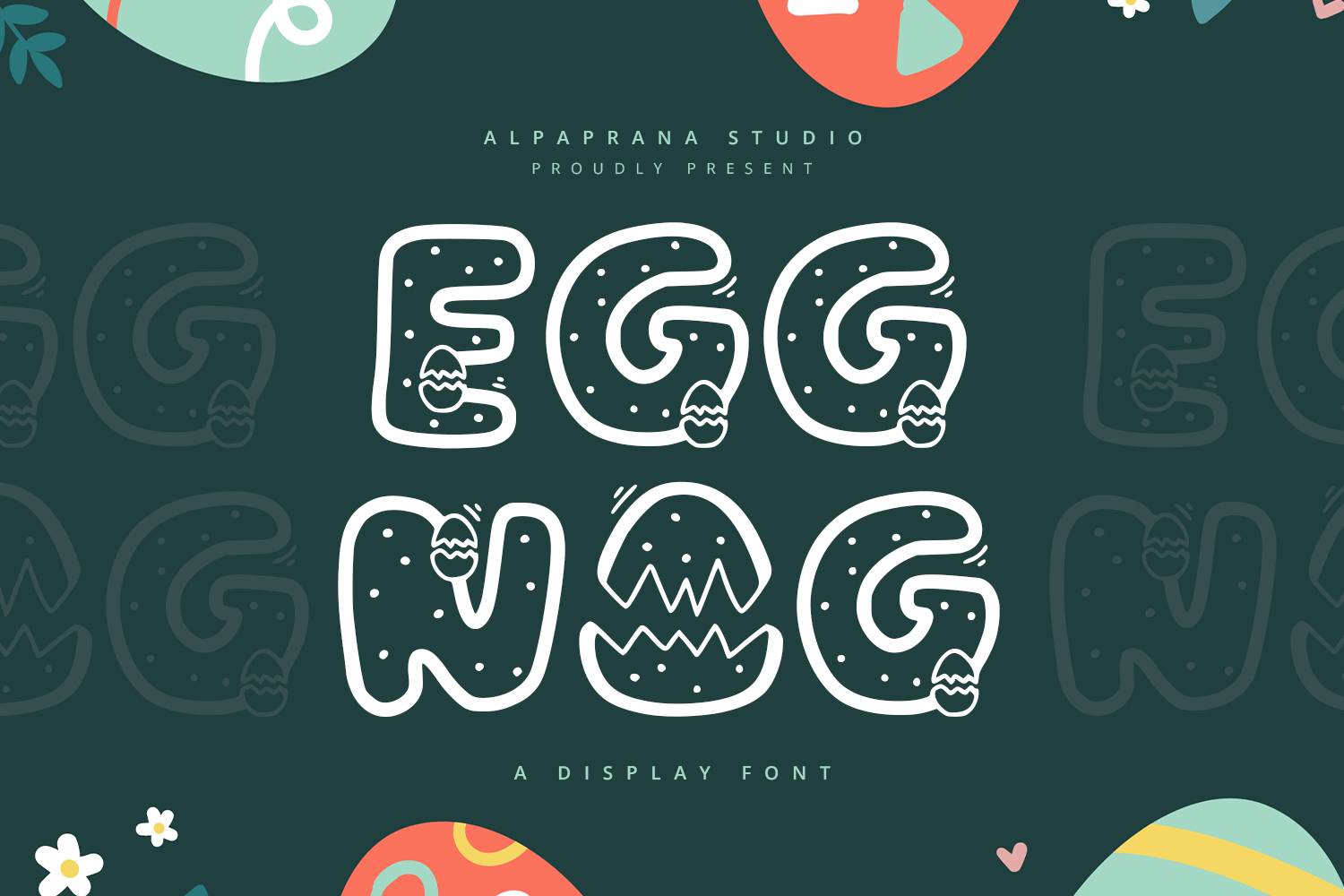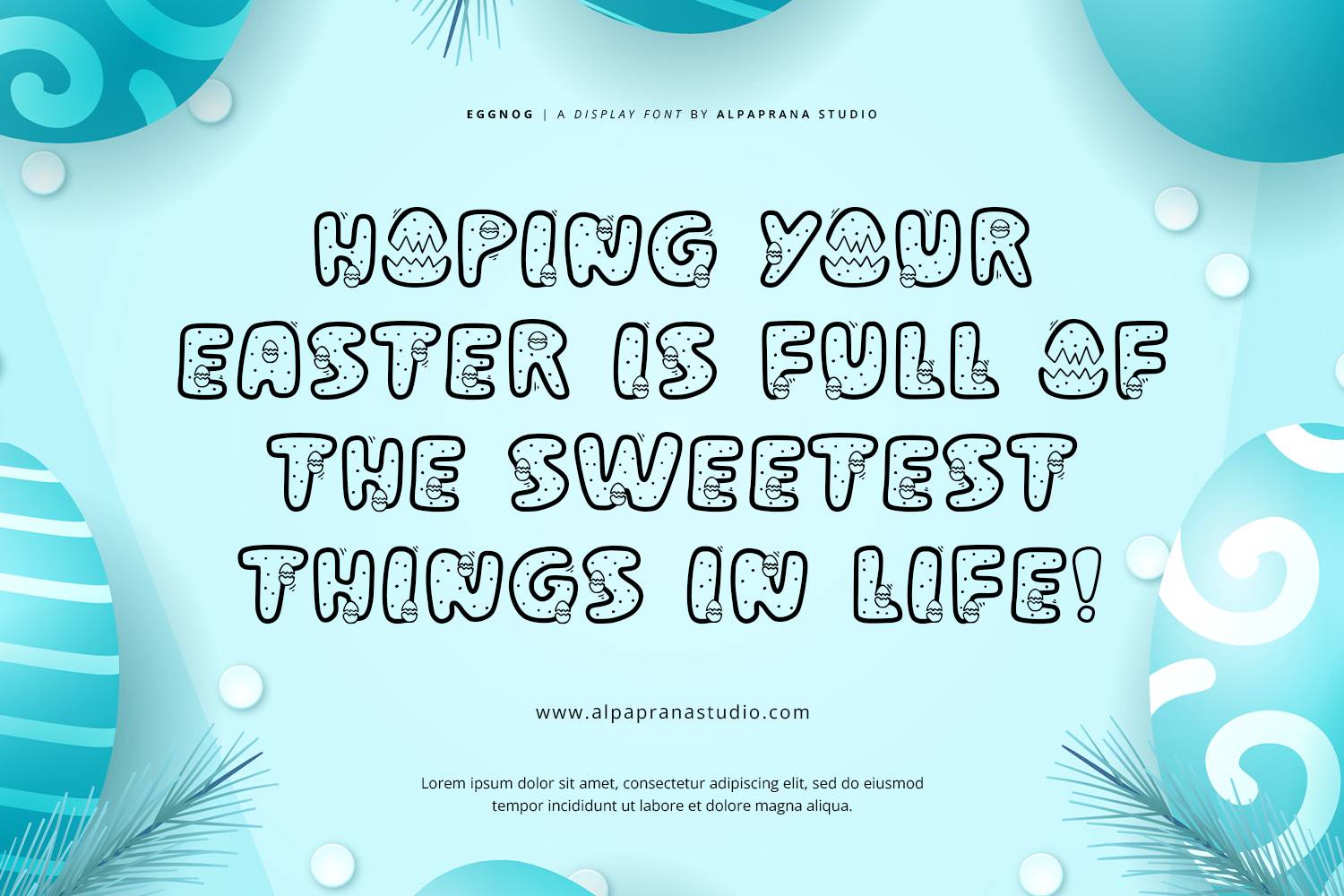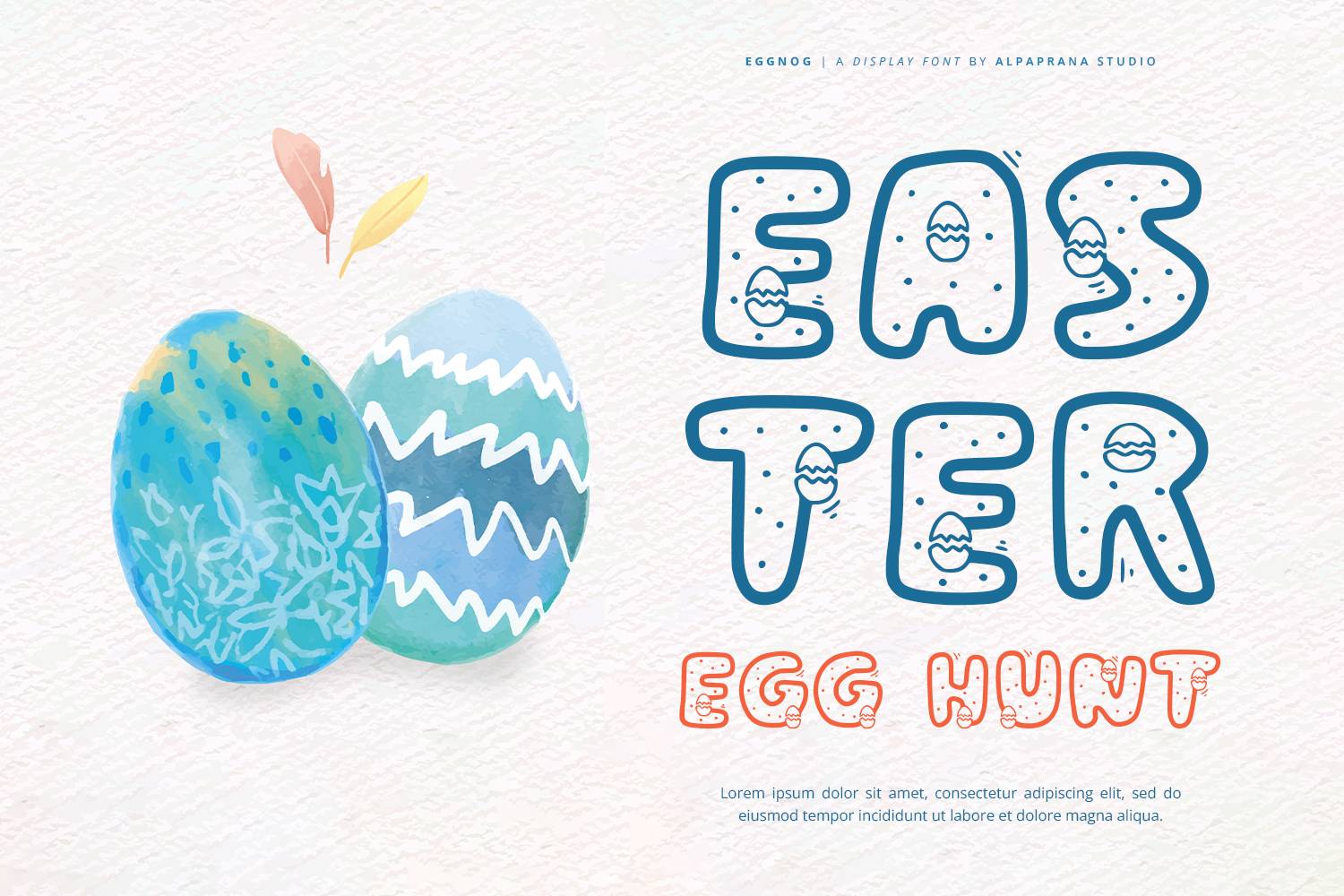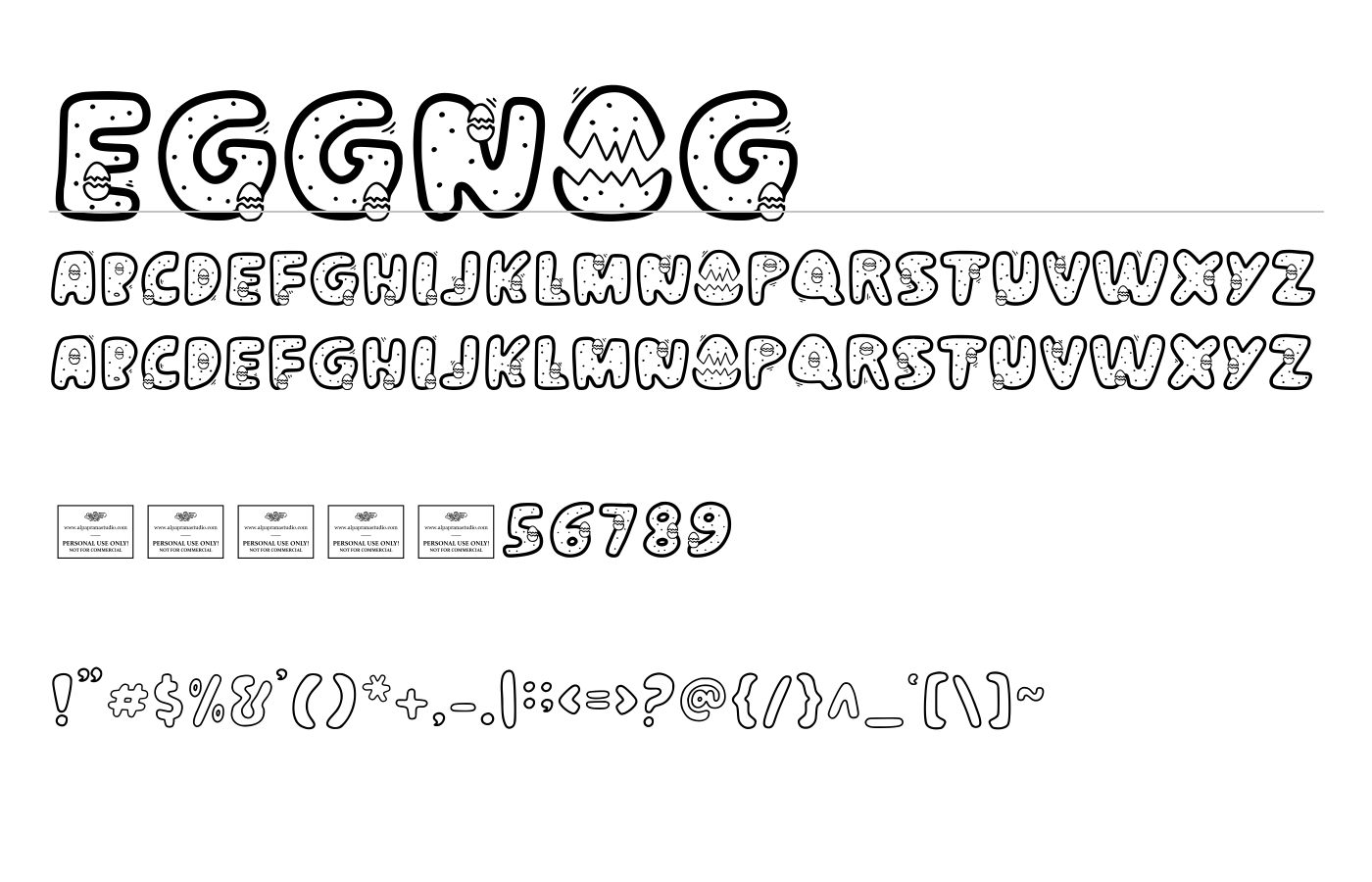
Eggnog is a playful, rounded display font featuring thick, bubbly letterforms decorated with whimsical Easter-themed details like eggs and chicks. Its bold, friendly style with even stroke weight and airy spacing makes it perfect for festive, fun designs such as holiday cards, children’s party invitations, and seasonal packaging, bringing a cheerful and lighthearted mood.
Eggnog Font
About Eggnog Font